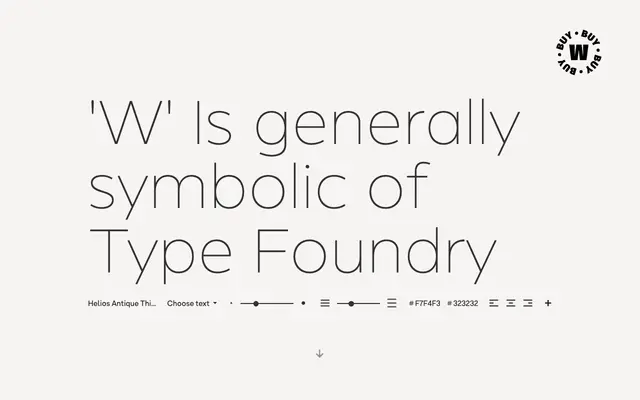
Helios
W Type Foundry · Salvador Rodriguez Felipe Sanzana
A grotesque sans in two subfamilies, Antique and Stencil, spanning nine weights with italics and a wider-than-typical structure for stronger visual impact.
Designed by Salvador Rodriguez Felipe Sanzana, Helios takes the rational skeleton of early sans-serifs and widens it slightly beyond historical norms to increase on-page presence. Open terminals and deeper contrast at stroke junctions improve legibility, while distinctive details such as the leg of the R and the tail of the Q give the family a recognisable character. The Stencil subfamily mirrors the full weight range and shifts between neutral and display qualities depending on size.
Described as a blend of early sans-serif tradition with contemporary sensibility, featuring open terminals, rational structure and slightly wider proportions than classic grotesques. The Stencil subfamily adds a display dimension but the core family sits firmly in the grotesque sans tradition.